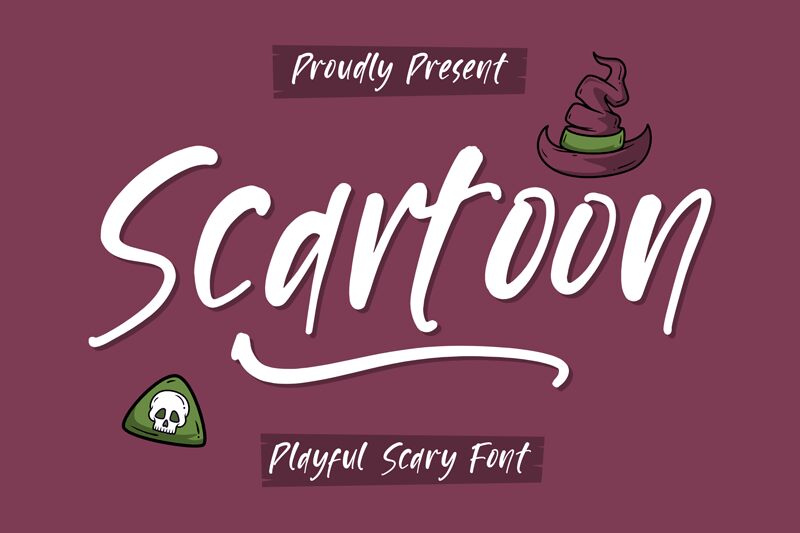
Scartoon
Scartoon font by Letterena Studios is a free handwritten typeface that captures the personal touch of real handwriting. Casual yet energetic shapes, varying baselines, and a sloping angle give each letter an expressive movement. Designed for friendliness, warmth, and informality – all these characteristics help deliver messages that are as equally emotional as they would be readable.
Use Scartoon in light-hearted graphic design projects where you want to make the reader smile! Possible ideas include catchy poster headlines or body text, food or fashion magazine articles, on-package graphics, birthday invitations, blog banners and yay more.